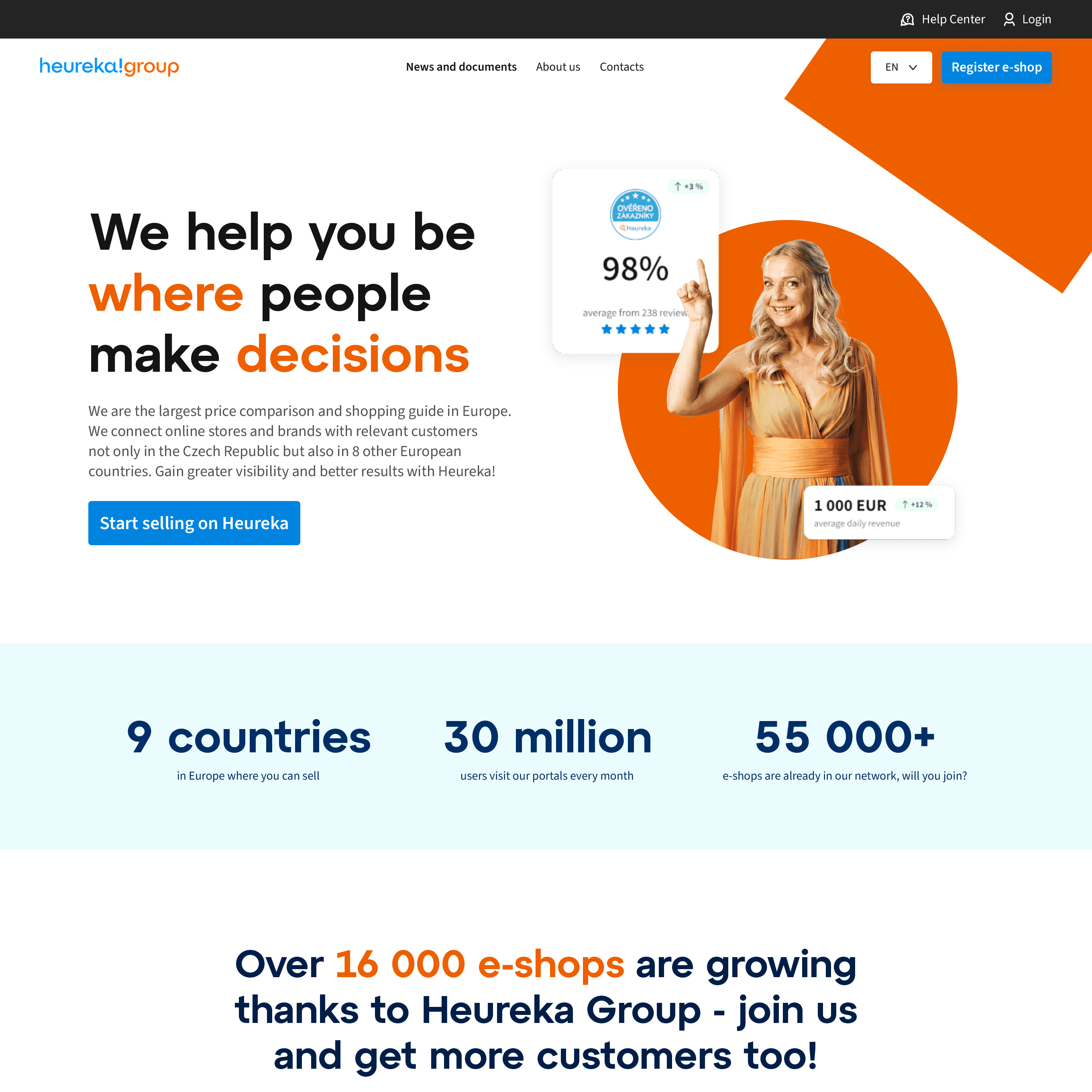
Heureka Display
Heureka Group is the largest group of price comparison and shopping advisory platforms in Central and Eastern Europe. Operating across nine countries, it connects online retailers with customers through price comparison services, product reviews, merchant ratings, and a range of other e-commerce solutions.
An effective way to create a distinctive corporate typeface can be as simple as replacing selected characters with their formal counterparts from the Greek alphabet, referencing the ancient Greek origin of the company’s name.